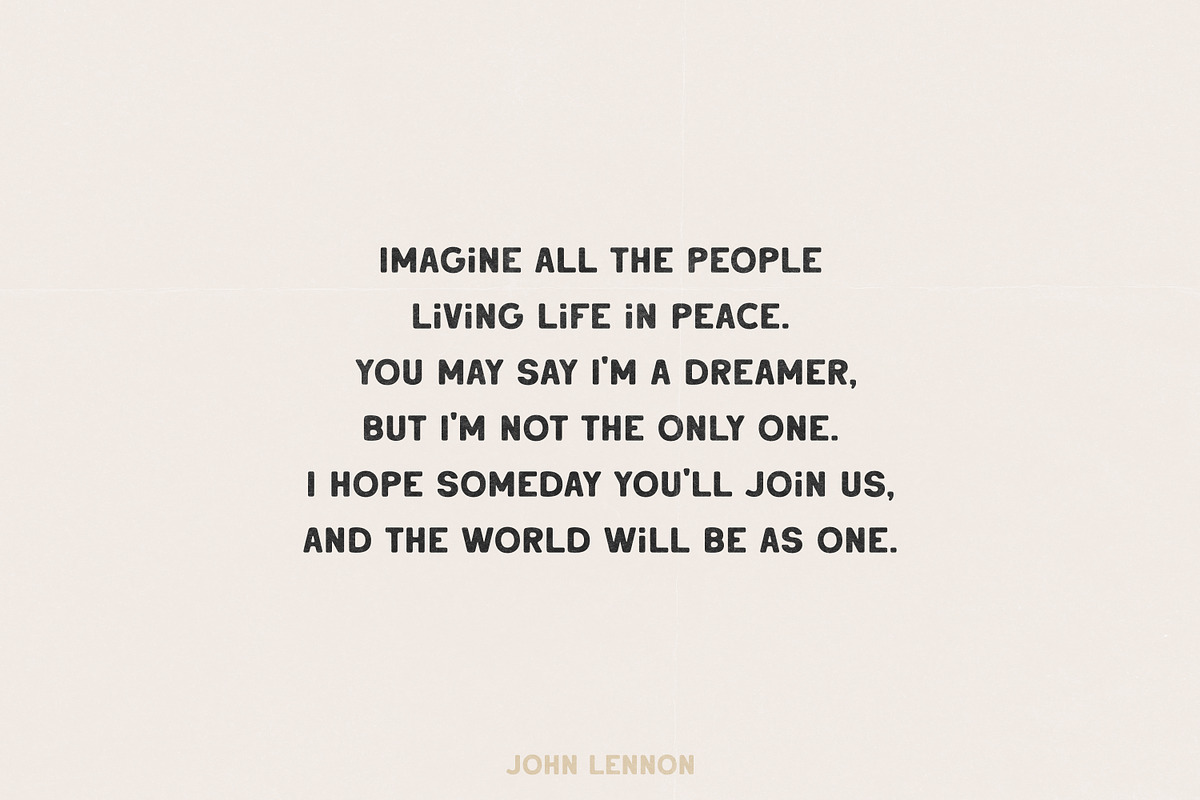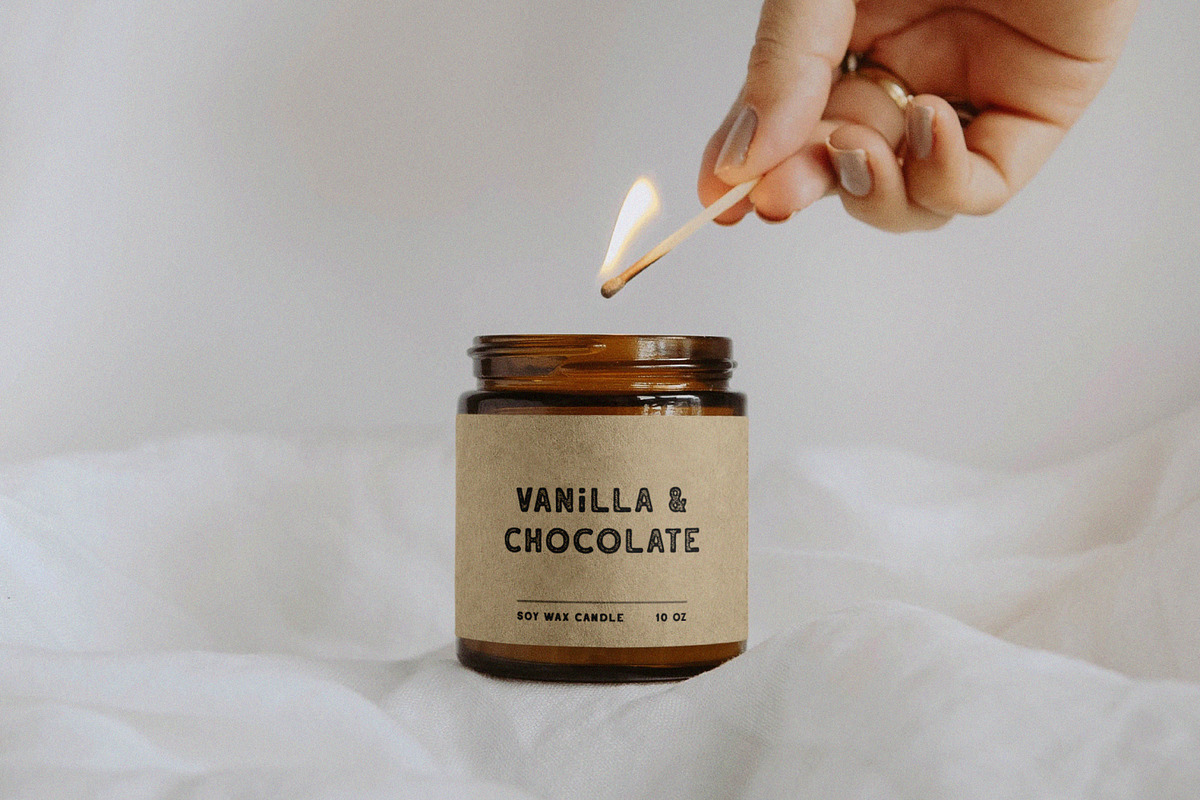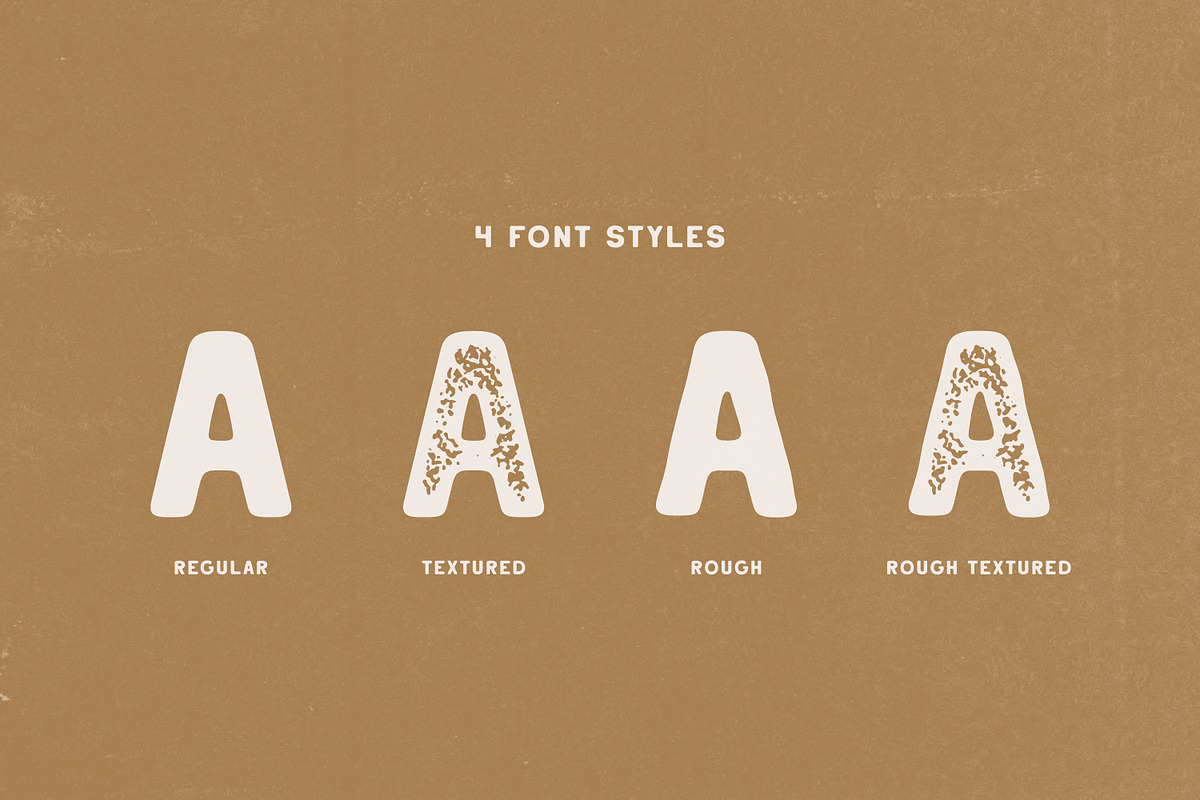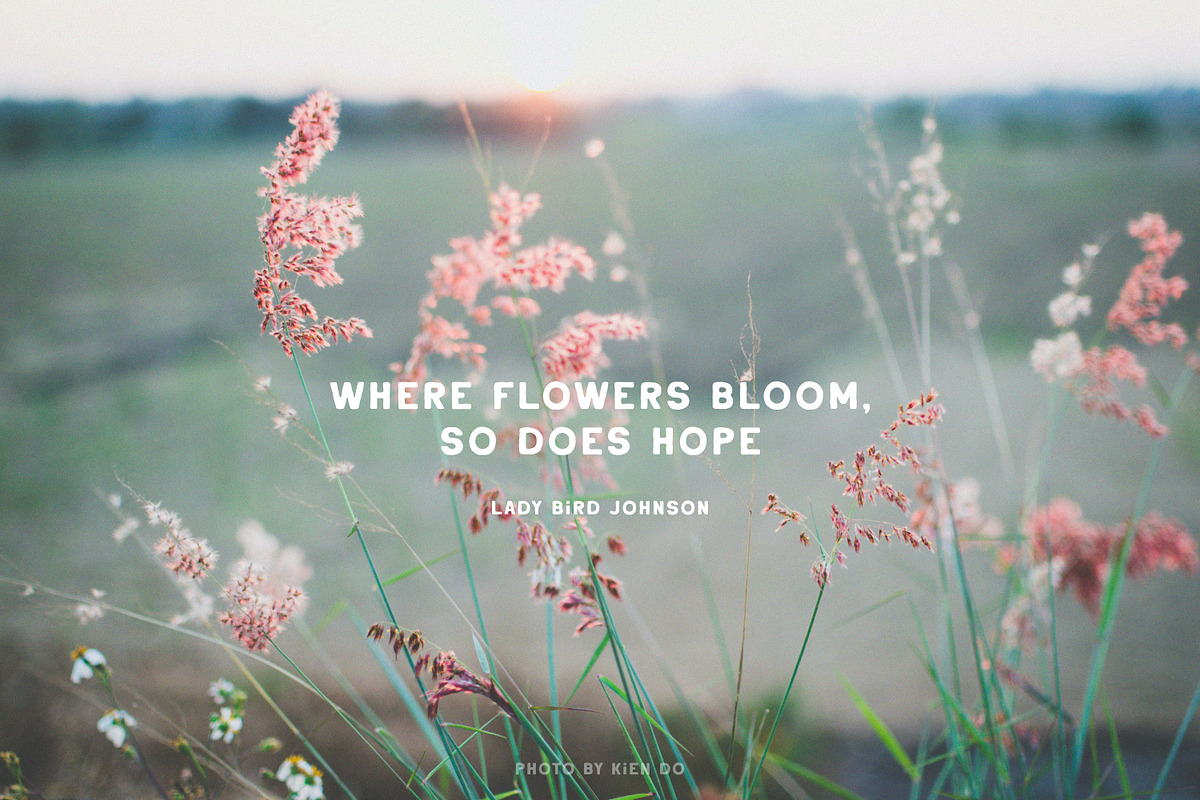
Something Good - Handwritten Sans
Something Good is a handwritten uppercase sans serif in four styles. Perfect for logos, branding, packaging, apparel, cards, posters, stickers, quotes, social media posts and more!